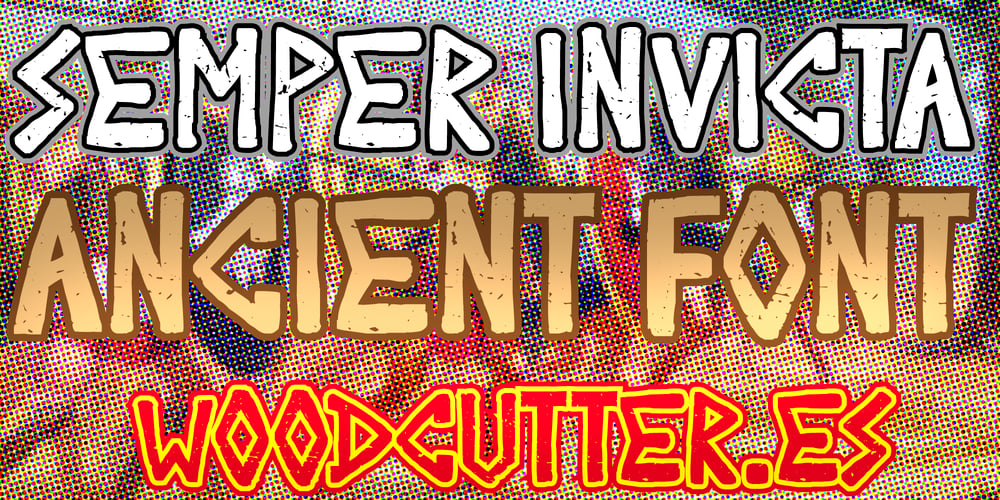
Semper Invicta Font Family was designed by Jordi Manero and published by Woodcutter. Semper Invicta contains 1 styles and family package options. “Semper Invicta” is an uppercase typeface that emulates the ancient Roman style, with letters that appear to be carved into stone. Each character evokes the grandeur and durability of classical inscriptions, conveying a sense of power and solemnity. Ideal for projects seeking a historical or imperial aesthetic, this font adds a touch of authority and tradition to any design. Its robust and timeless appearance makes it perfect for titles, monuments, and logos that require a strong and lasting visual impact.